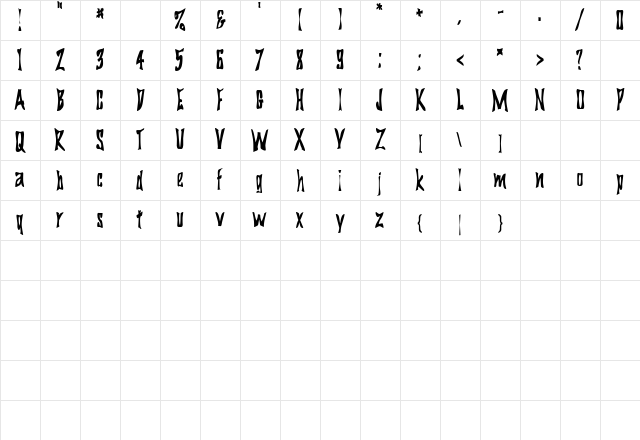
BigDaddyCondensed Regular
Complete BigDaddyCondensed Regular glyph index. Displaying only characters natively supported by BigDaddyCondensed Regular font.
Design Context for BigDaddyCondensed
BigDaddyCondensed is a composed and adaptable typeface that performs quietly and consistently across a wide range of design contexts. Its narrow stance lets it pack a punch even in space-constrained designs.